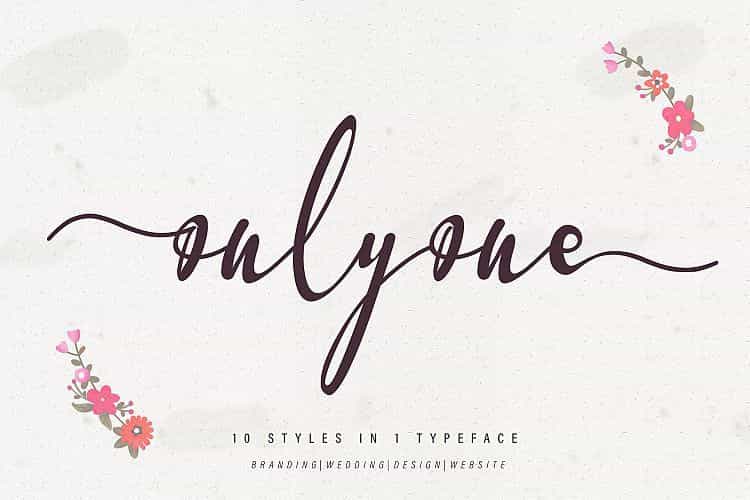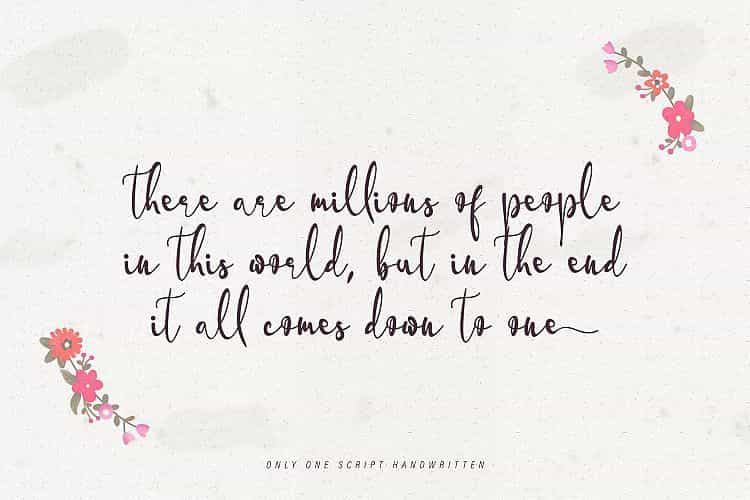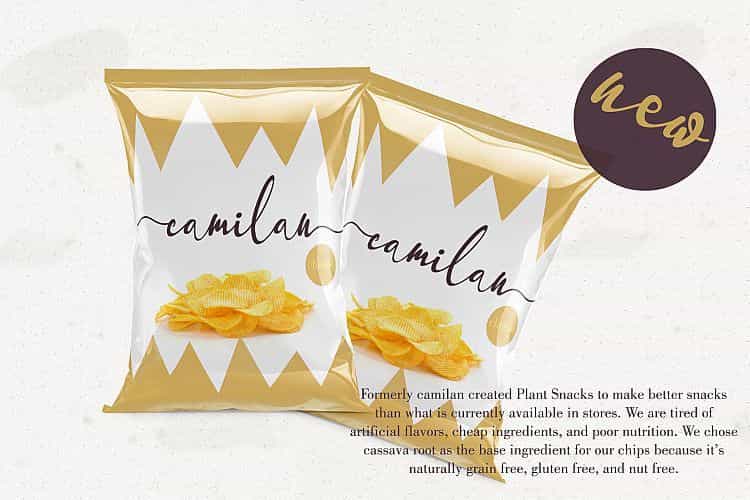
Onlyone is a professional handwritten font, which has a creative and memorable name. It is perfect for logo design, photo effects, watermarks, visiting cards, invitations, weddings, photo and fashion industry.